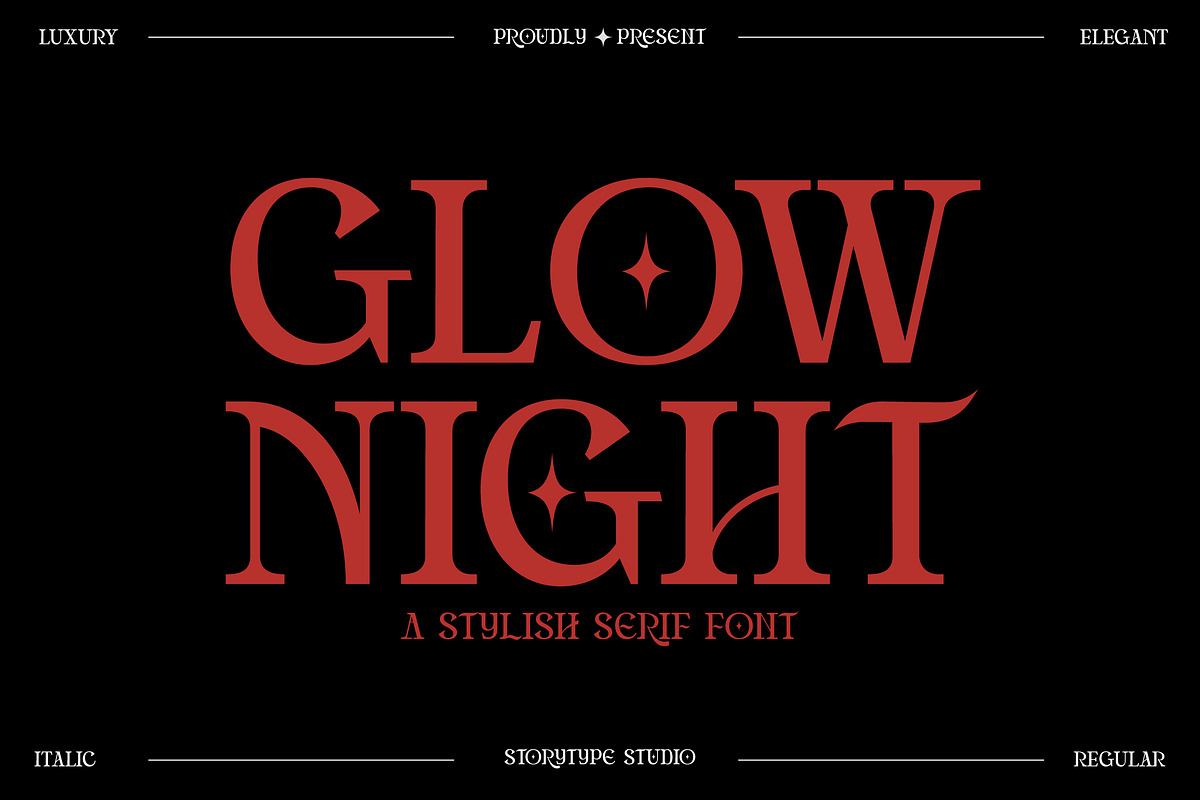
Glow Night Stylish Serif Font Free Download
Glow Night Stylish Serif Font Free Download is a chic and expressive typeface that brings glamour and sophistication to any design. Featuring graceful curves, elegant serifs, and stylish details, this font is perfect for fashion branding, magazine layouts, wedding invitations, and luxury packaging.
Glow Night balances classic serif structure with a modern, artistic flair—making it ideal for headlines, logos, and high-impact statements. Its feminine touch and high-contrast letterforms give your projects a bold yet refined personality.
Designed to stand out in both print and digital spaces, this font ensures your message is always delivered with elegance and clarity.